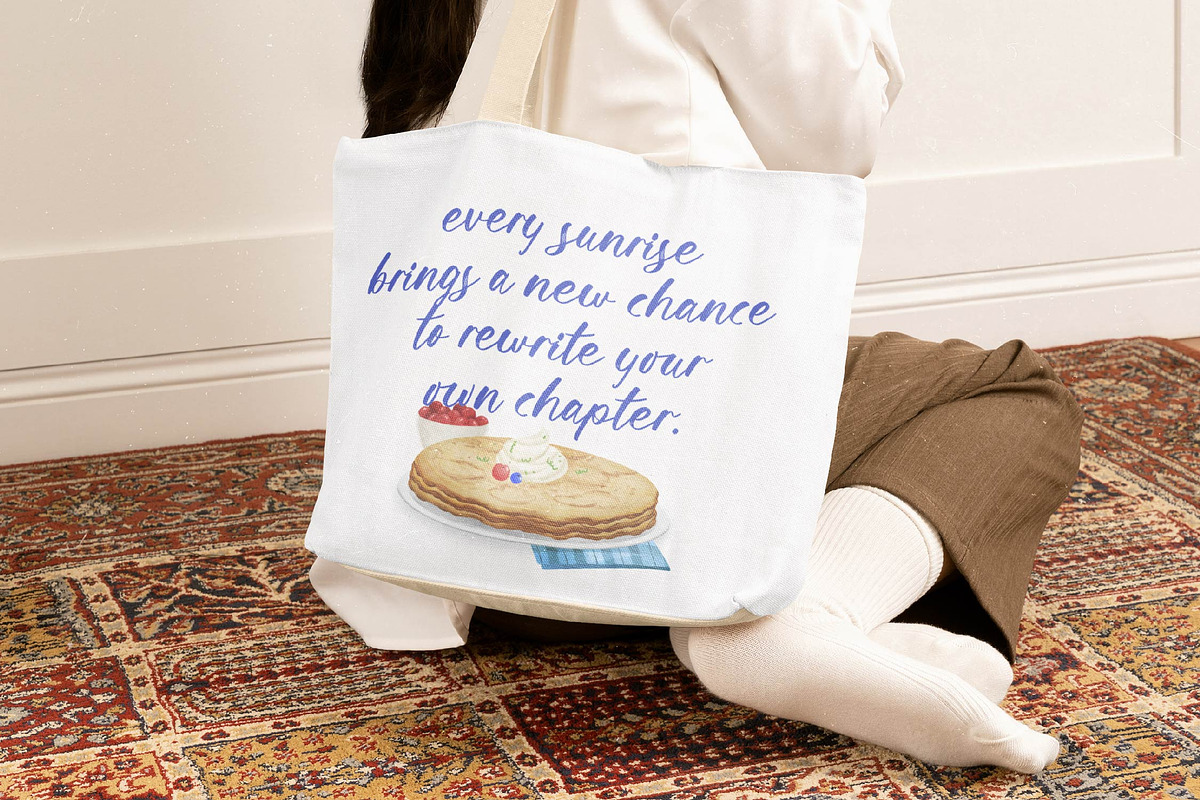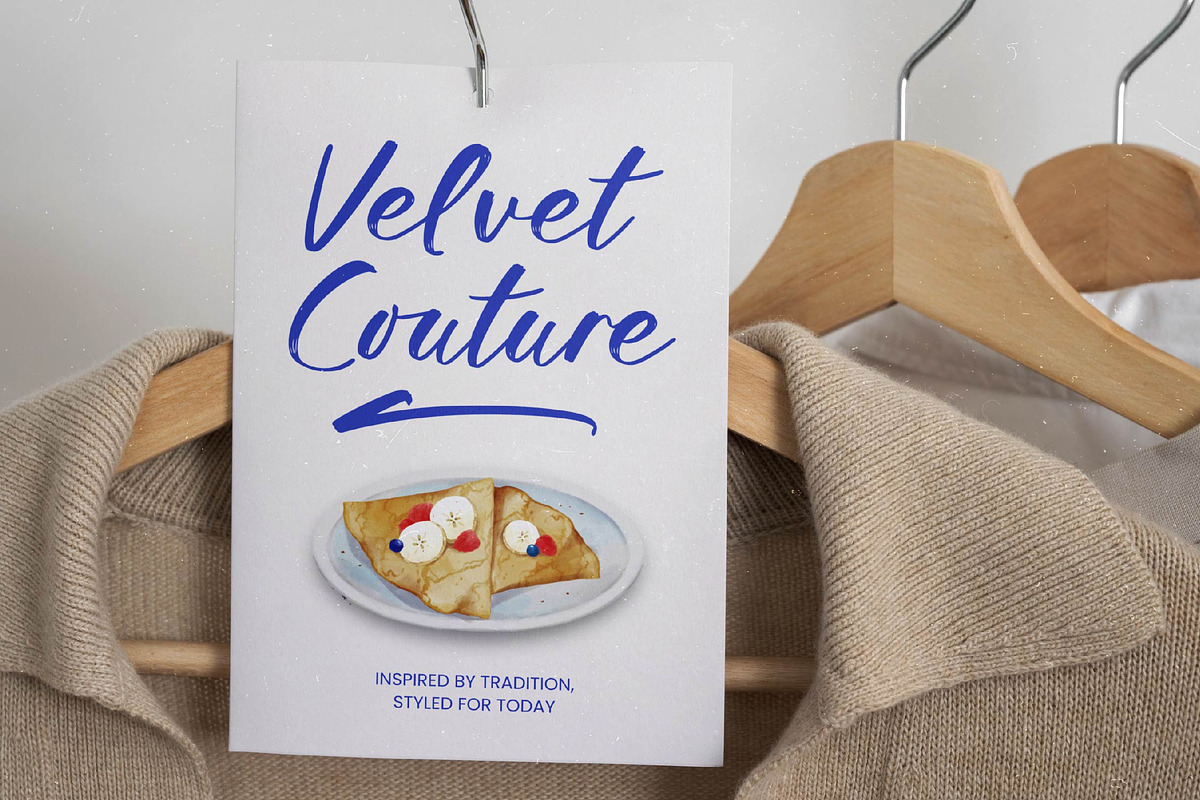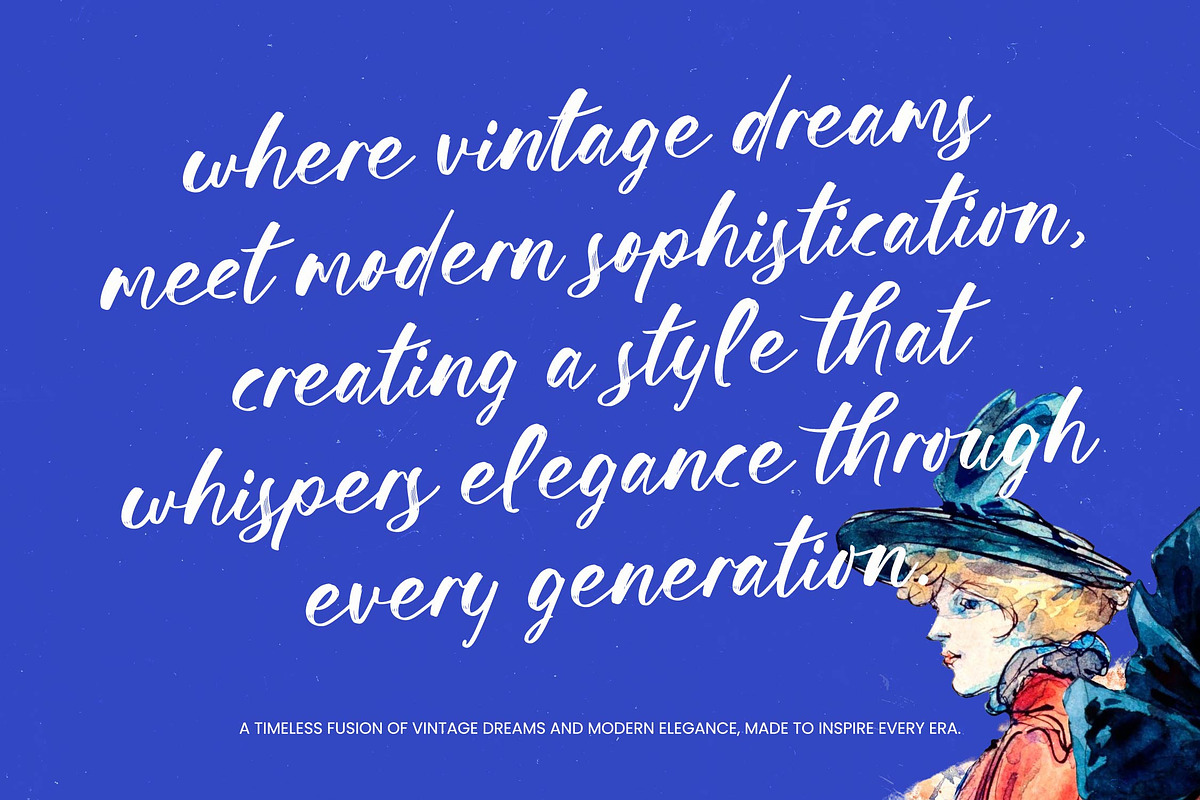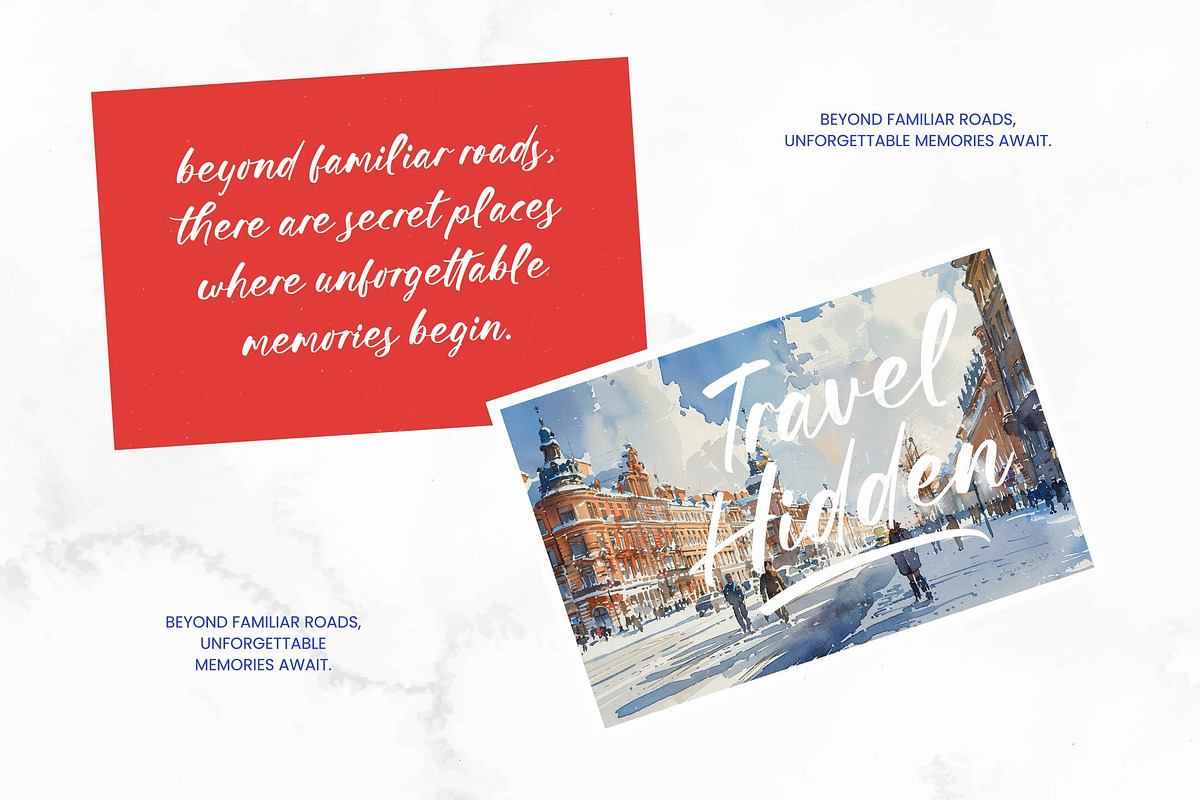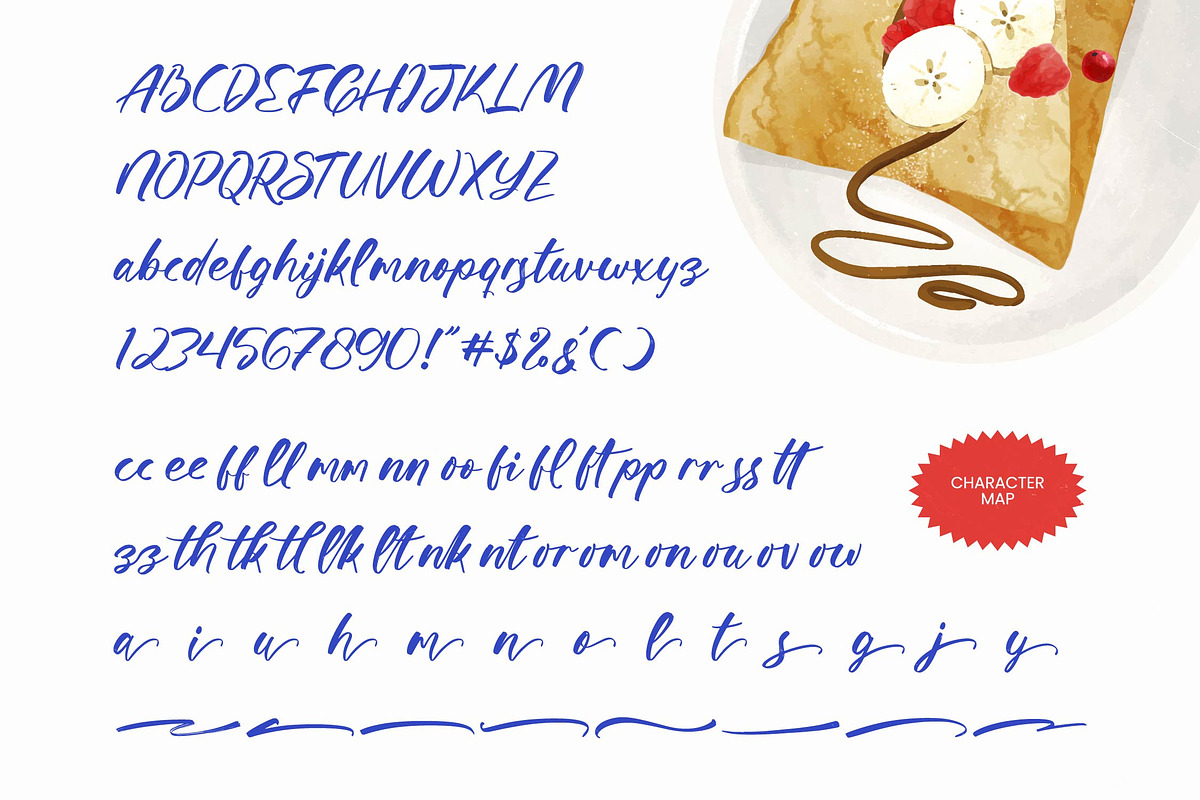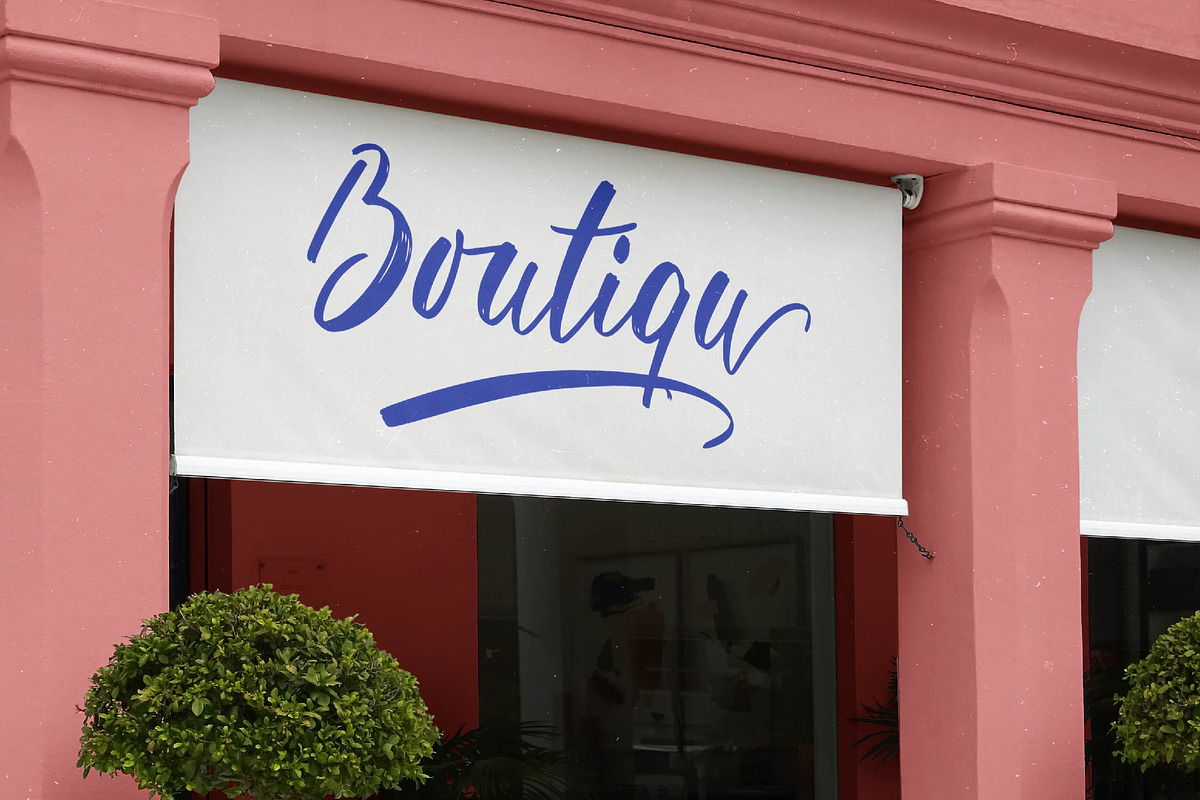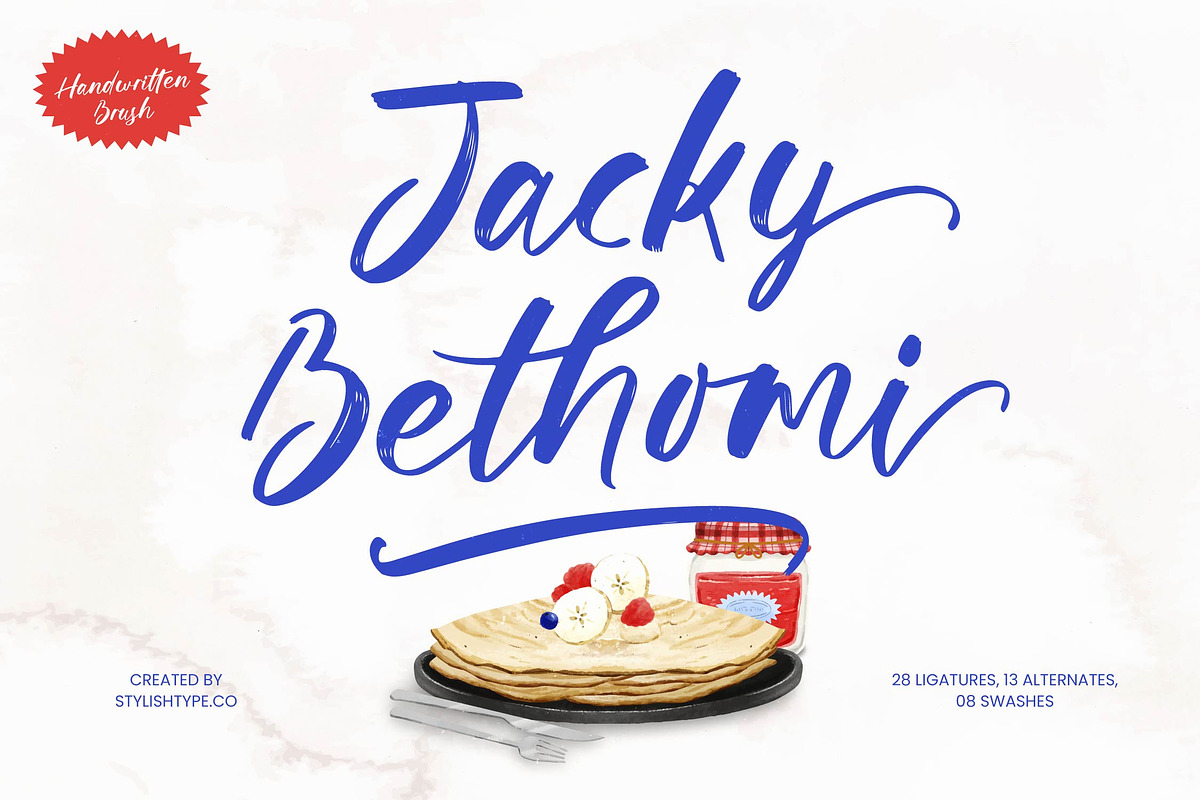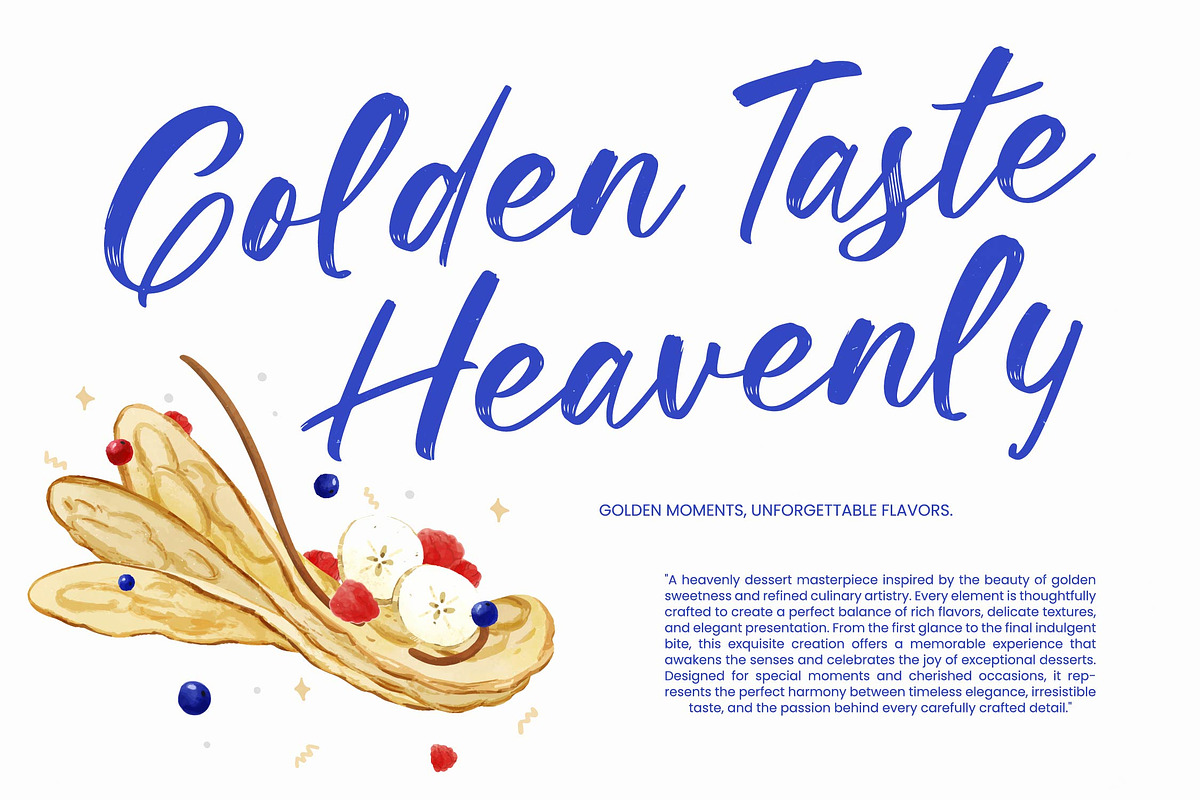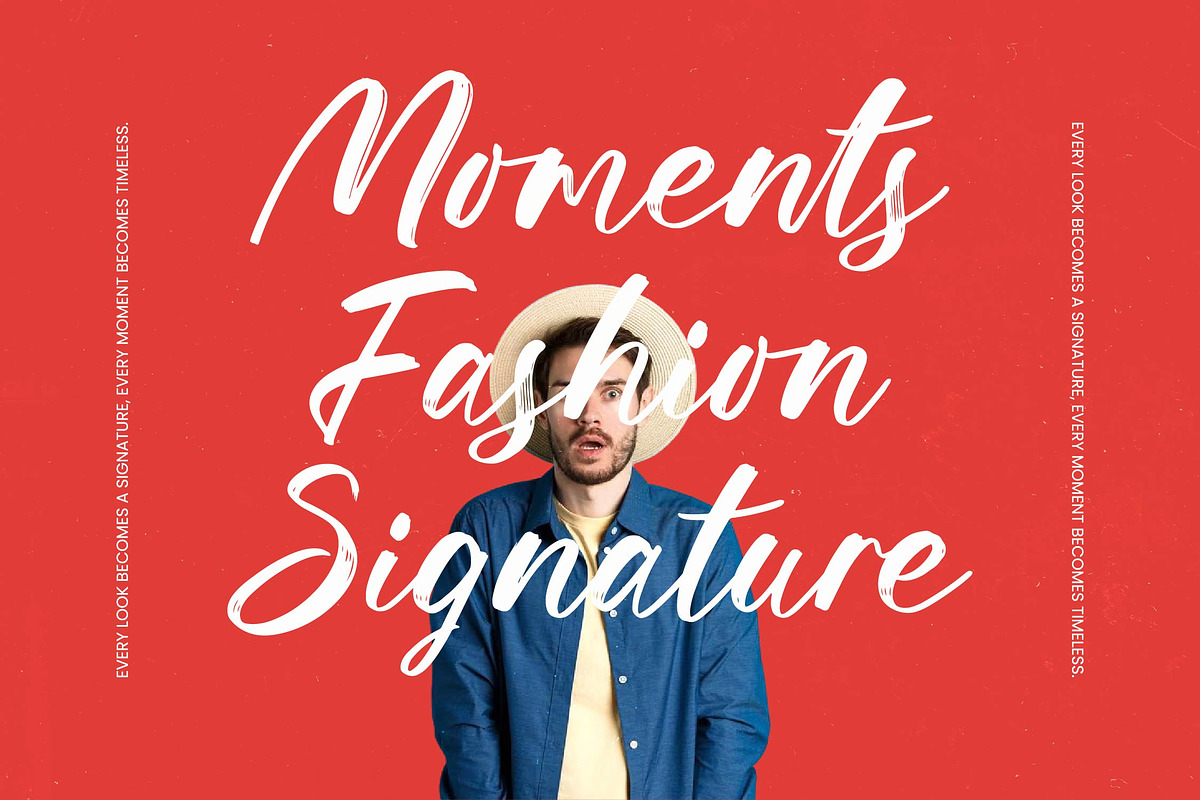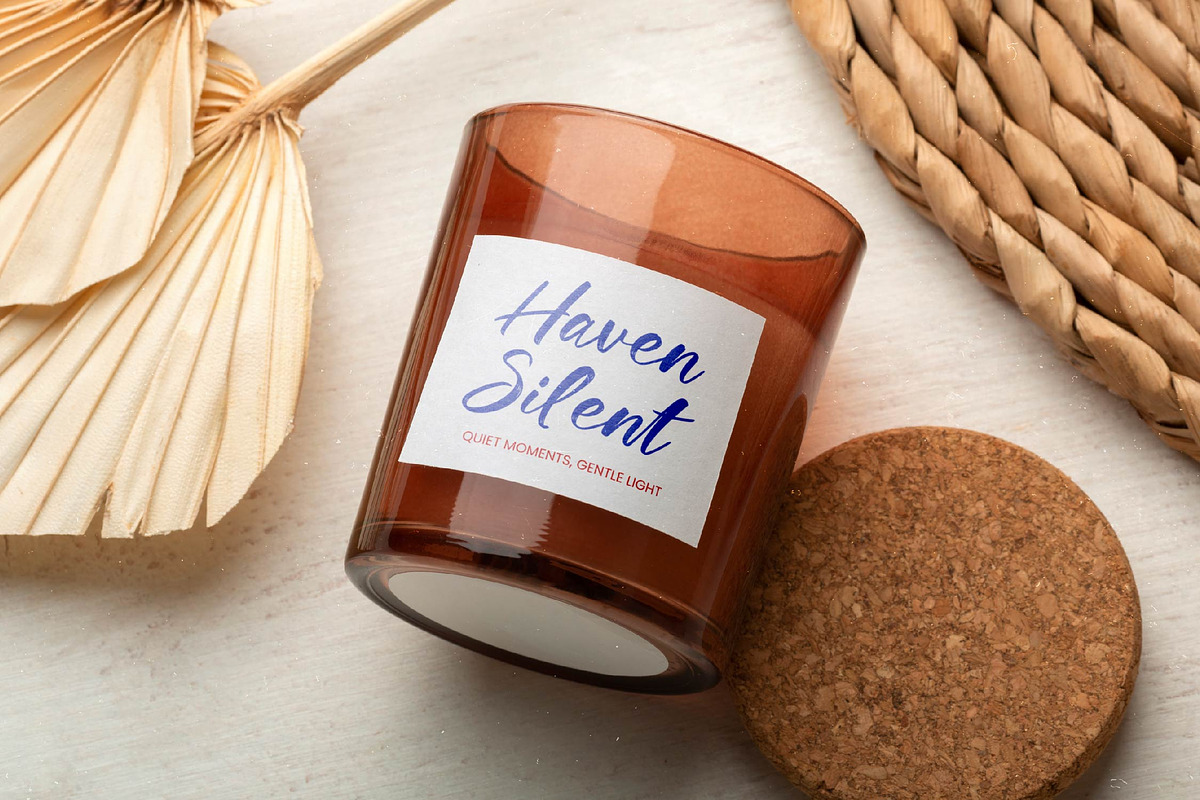
Jacky Bethomi Handwritten Brush
Jacky Bethomi - Handwritten Brush , Elevate your creative vision with a typeface that embodies raw energy and sophisticated flair. Jacky Bethomi - Handwritten Brush is a masterfully crafted expressive script that captures the authentic texture of hand-painted strokes. Its fluid motion and dynamic letterforms create an immediate sense of personality, ensuring that your headlines command attention with an unmistakable artistic touch.
Global reach is essential in the modern design landscape. With its extensive multilingual support, Jacky Bethomi - Handwritten Brush adapts seamlessly across global markets, making it incredibly versatile for international projects. Whether your brand is communicating in Europe, the Americas, or beyond, this font maintains its visual consistency and professional elegance across various languages and character sets.
Precision meets organic beauty in this font's ideal application across premium lifestyle branding and editorial design. Jacky Bethomi - Handwritten Brush is perfect for high-end product packaging, fashion labels, and bespoke wedding stationery. Its ability to balance rugged texture with a refined silhouette makes it a primary choice for social media graphics and distinctive logo marks that require a human touch.
Unlock a world of creative possibilities with a toolkit designed for professional designers. Jacky Bethomi - Handwritten Brush comes enriched with a suite of stylistic ligatures and decorative swashes, allowing for a truly customized typographic experience. By integrating these versatile alternates, you can produce bespoke layouts that resonate with authenticity and elevate your brand's commercial appeal to new heights.